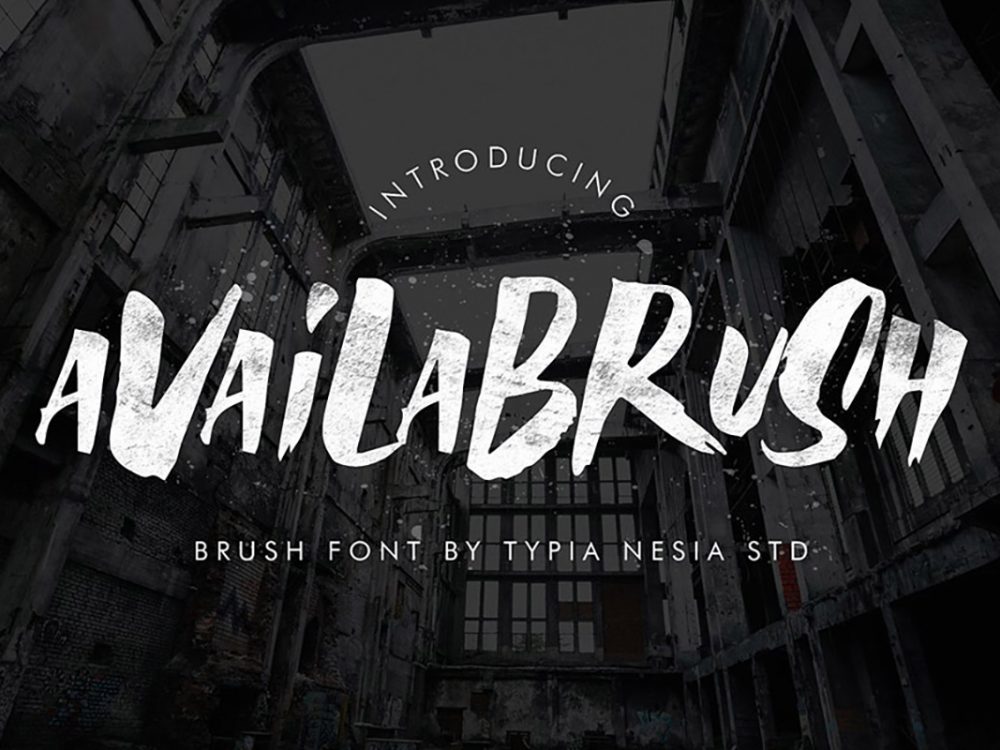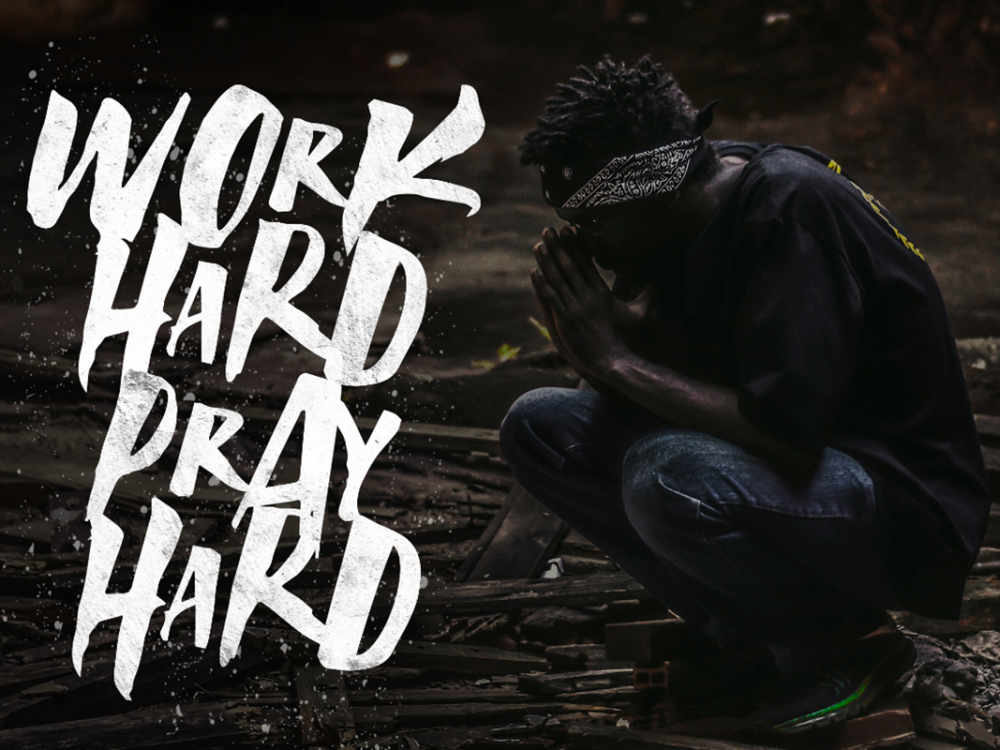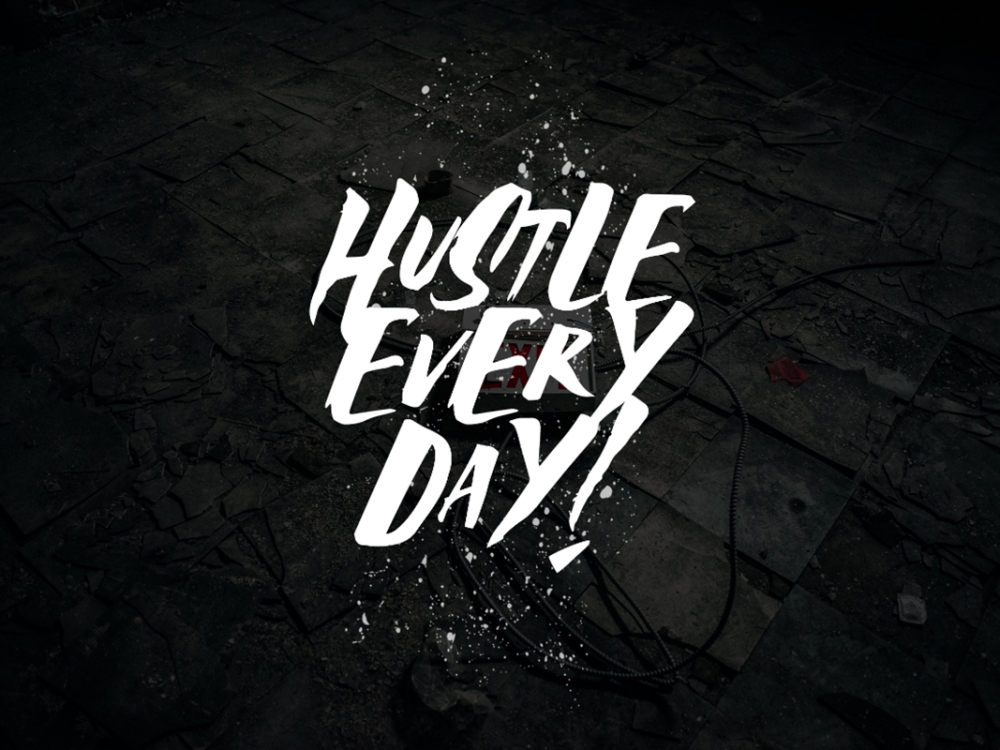
Availabrush Display Brush Font
Availabrush Display Brush Font is a modern, unusual font that mimics a brush style and is perfect for a variety of design projects that require a handwritten font. These can be wedding invitations, cards, posters, flyers, branding, logos, prints, and more. If you wish to access more features and use them for commercial work please buy the full version.